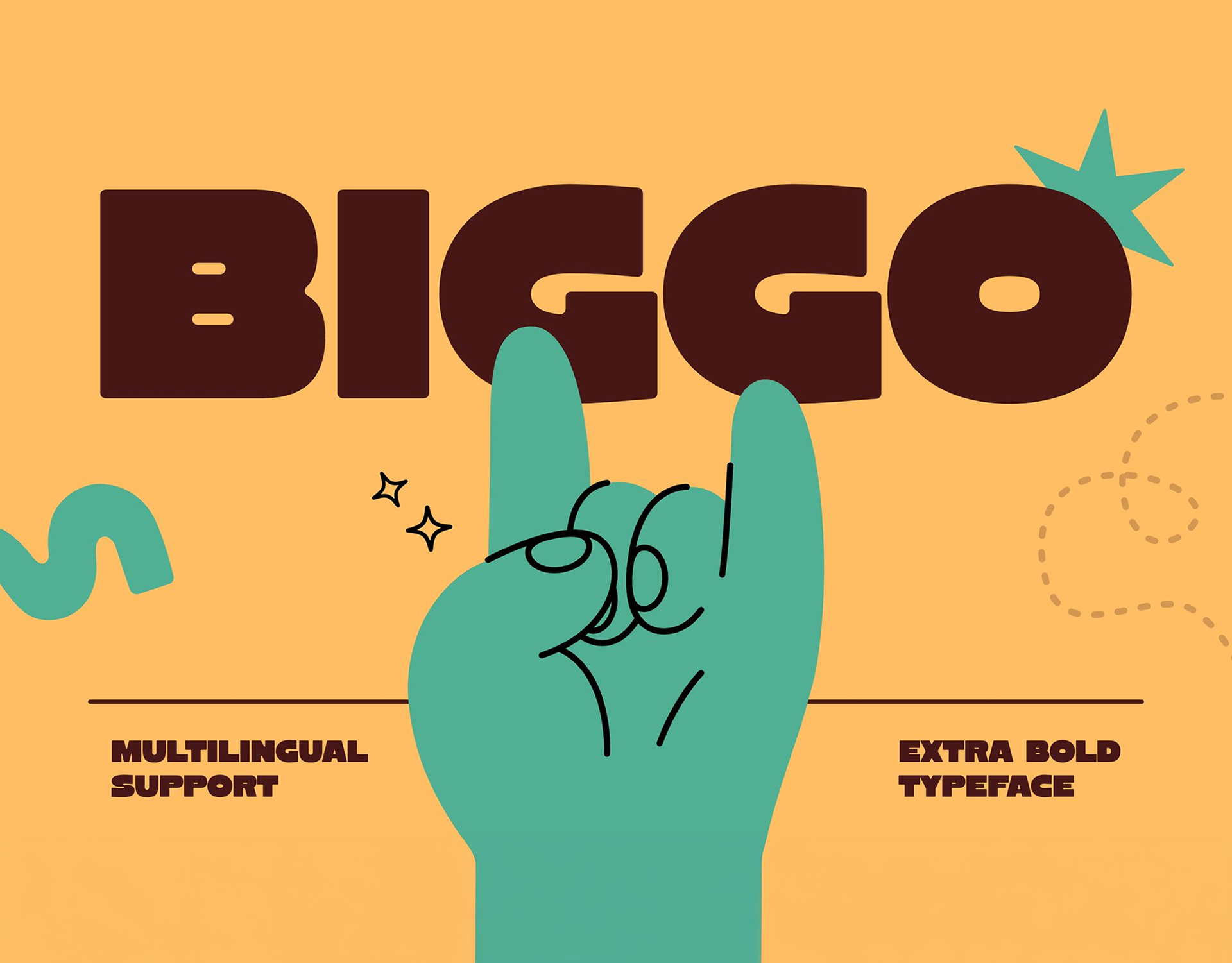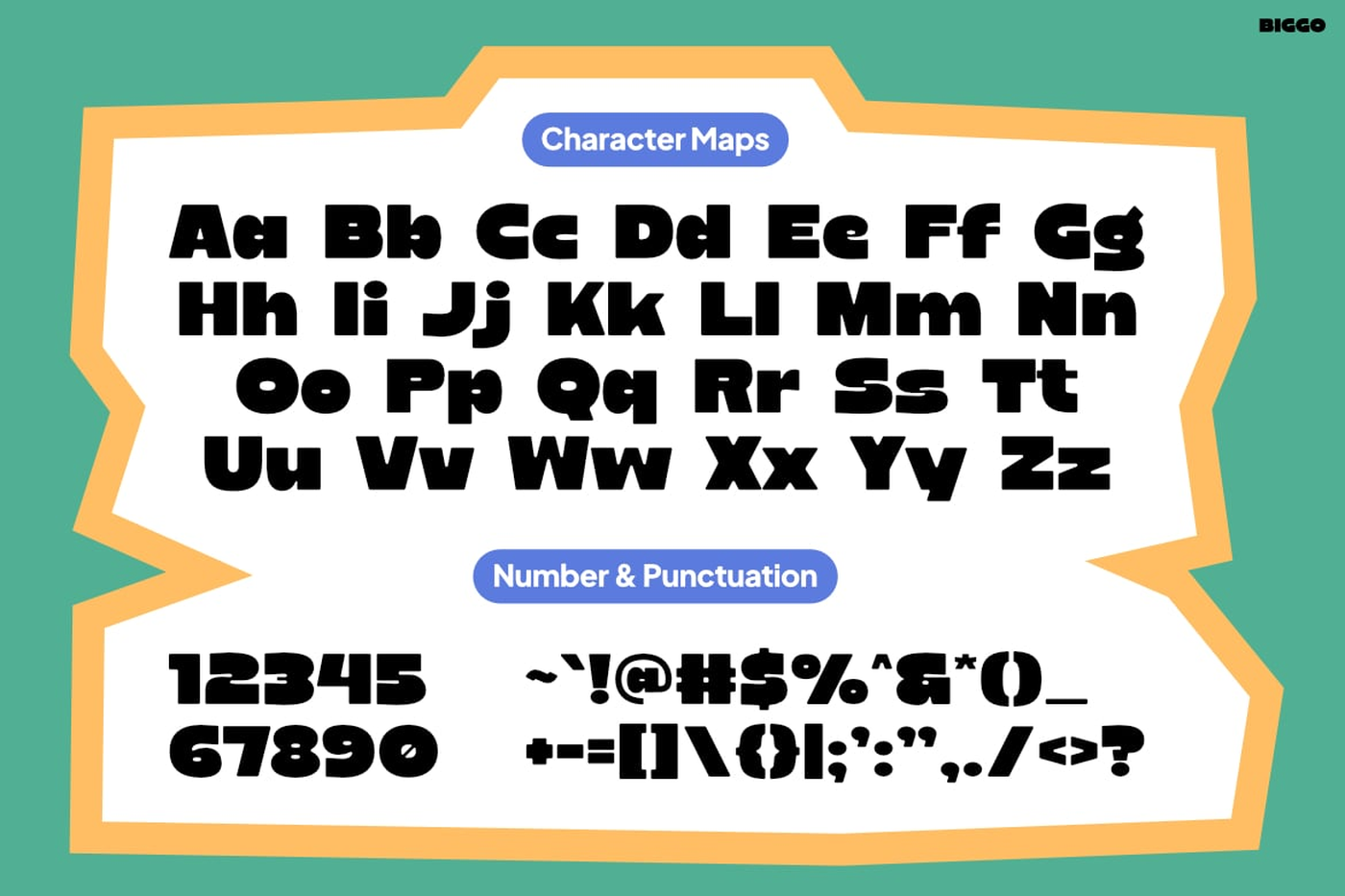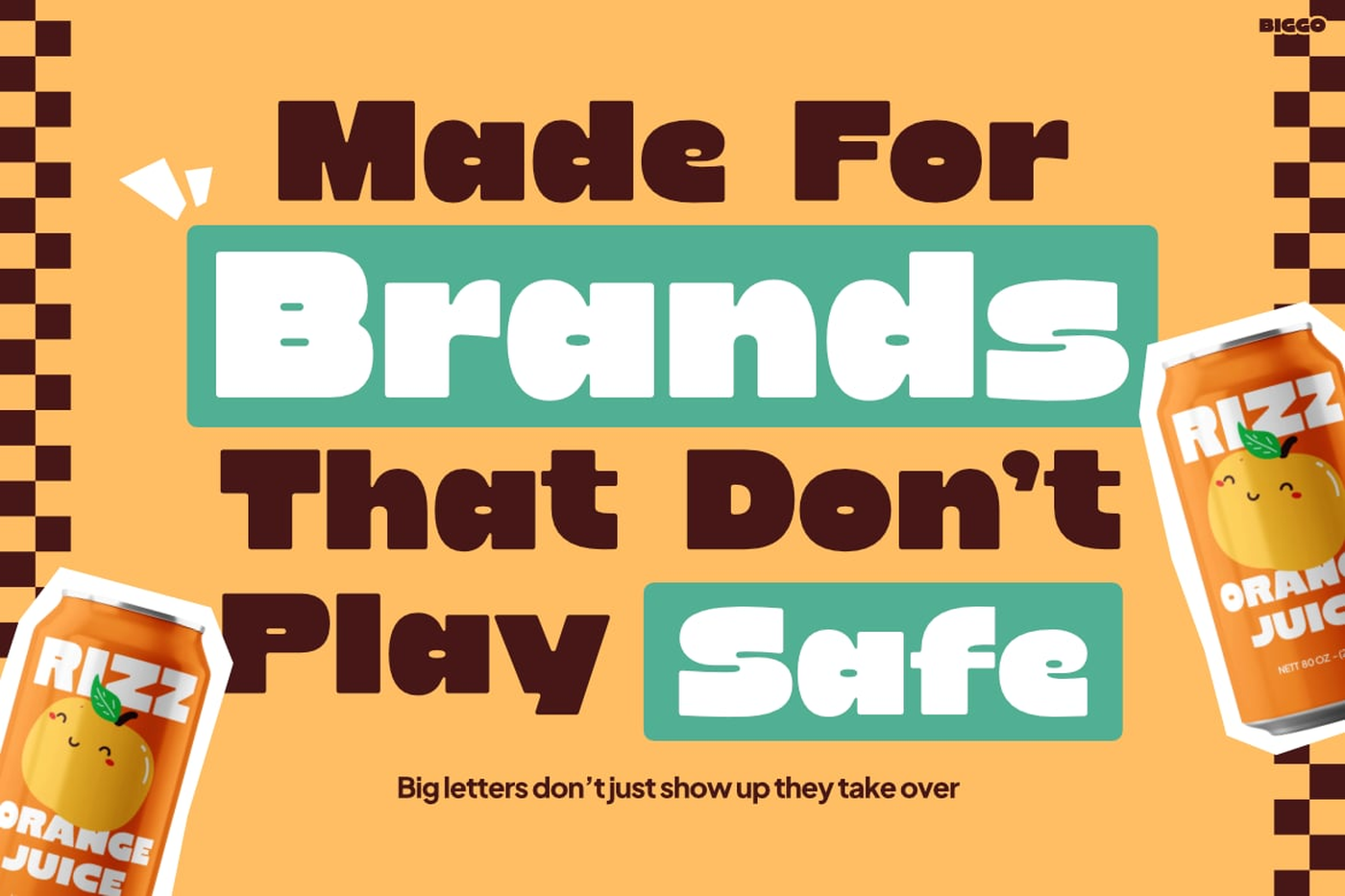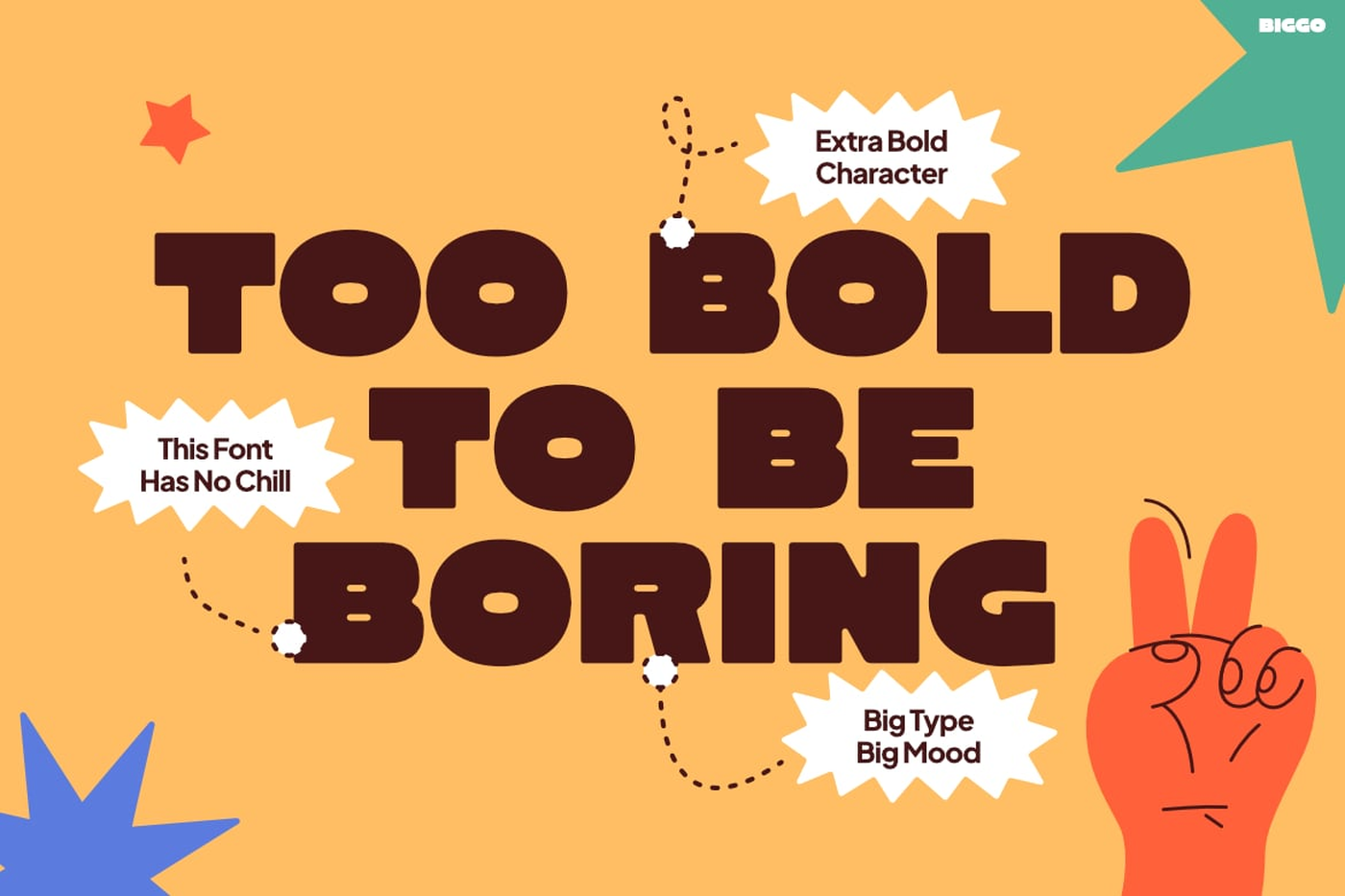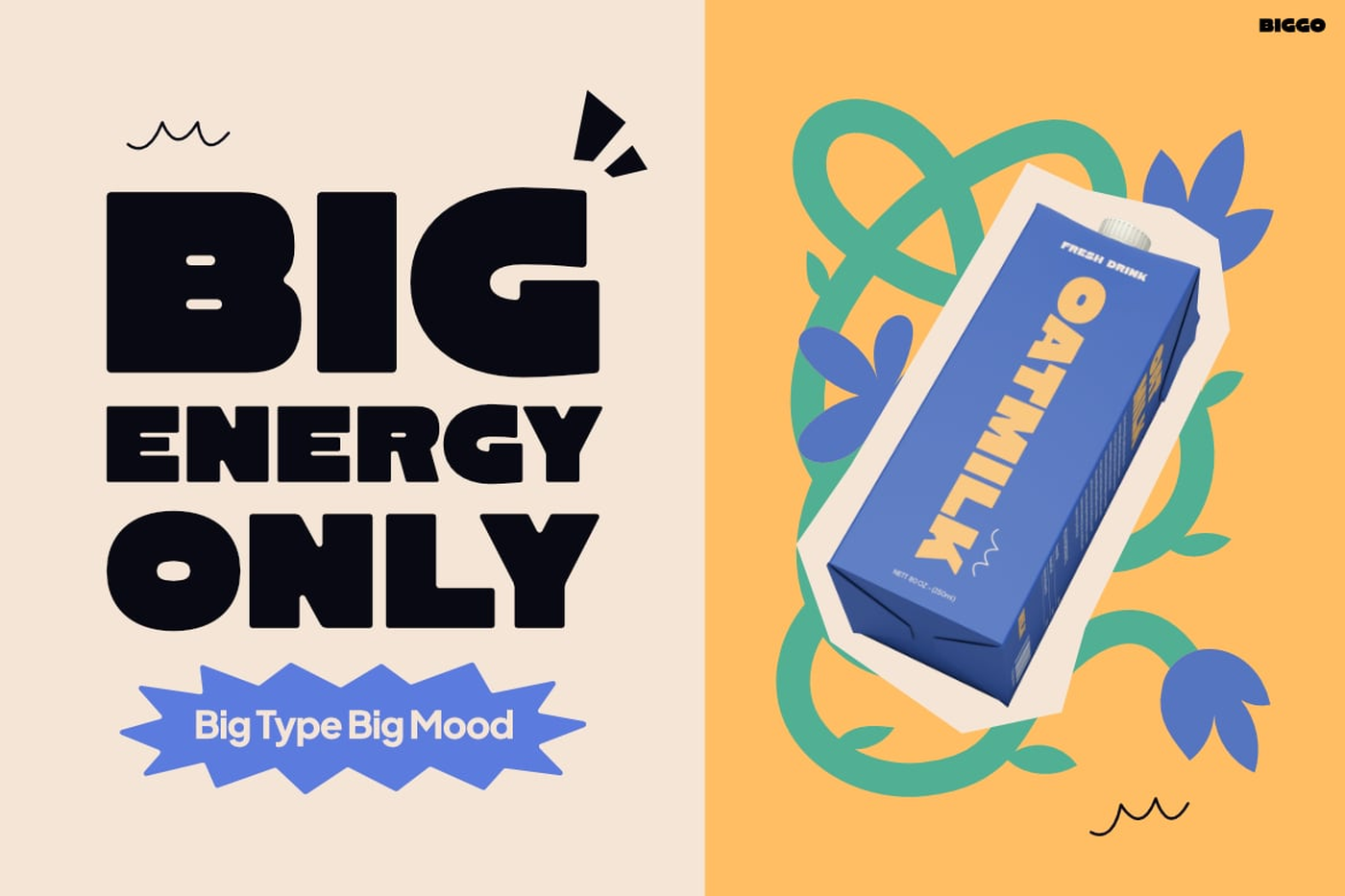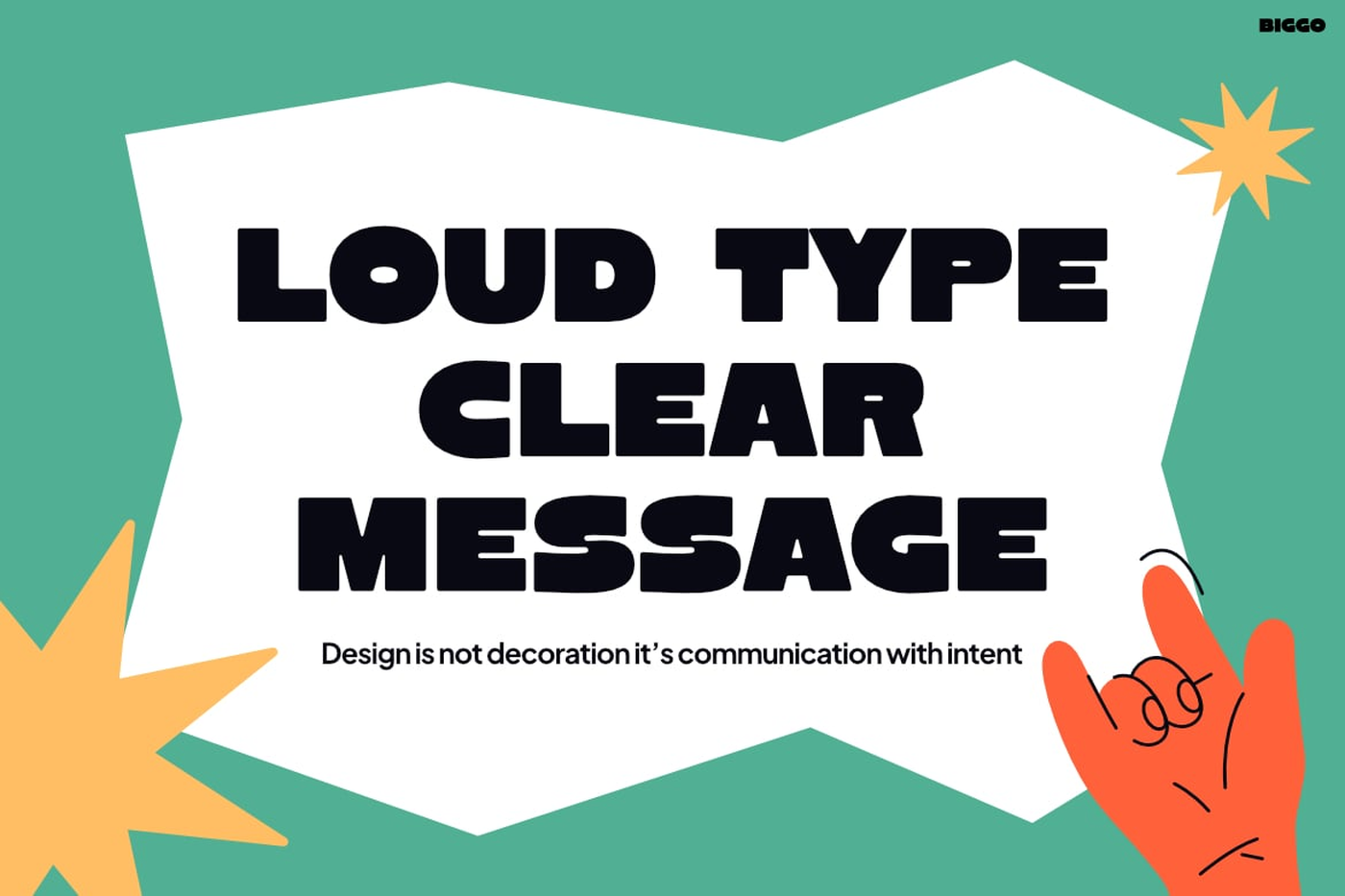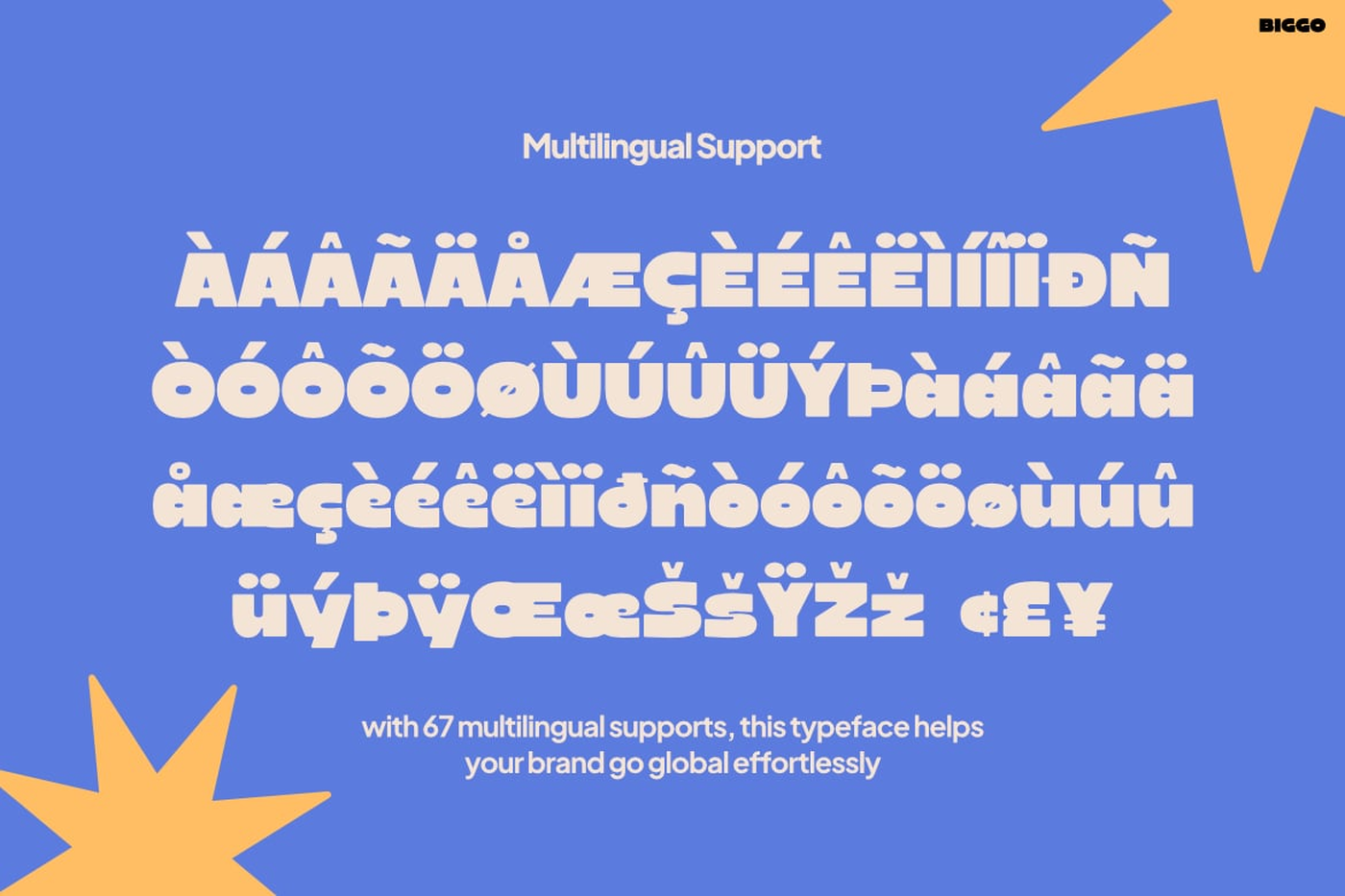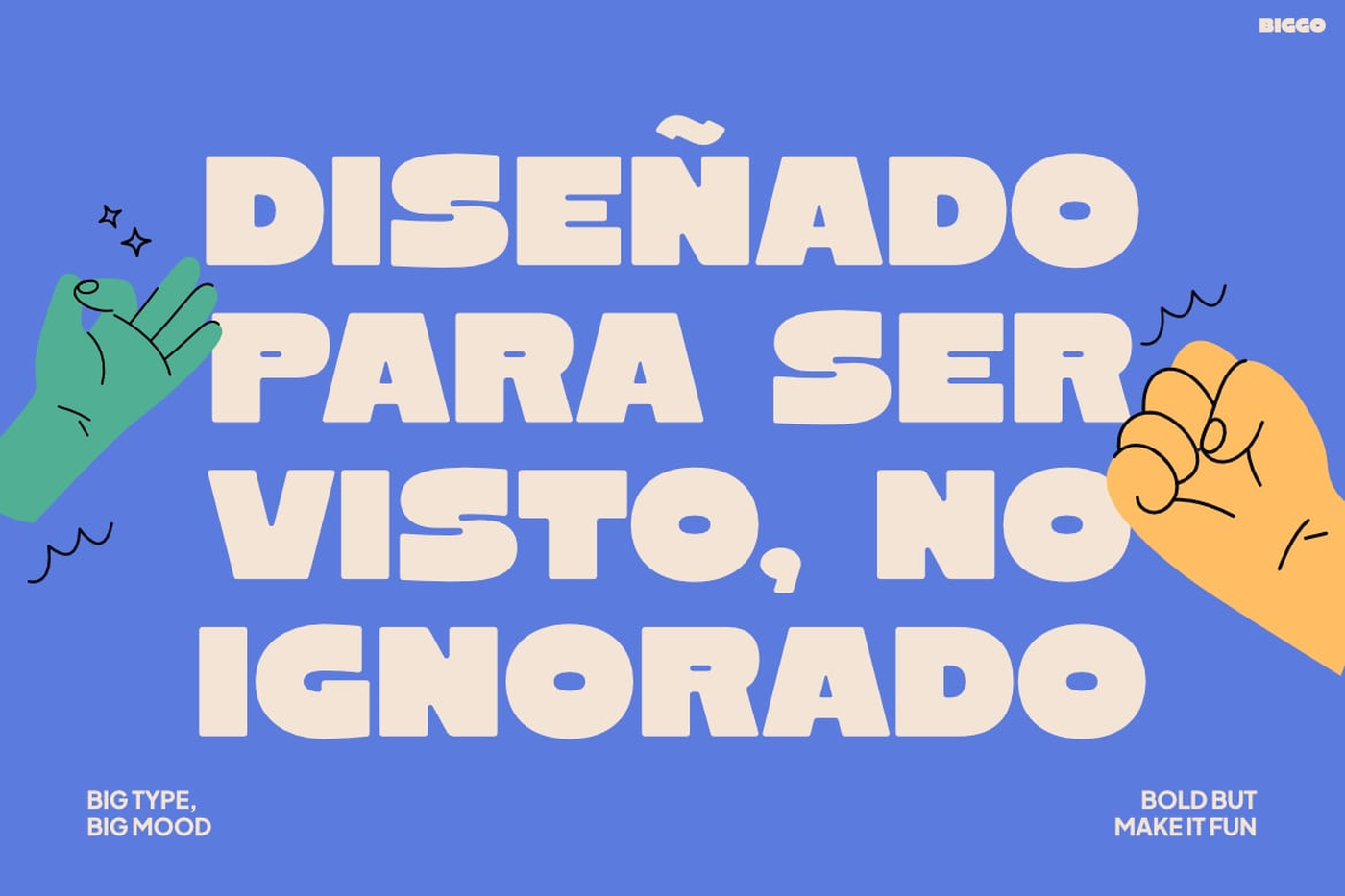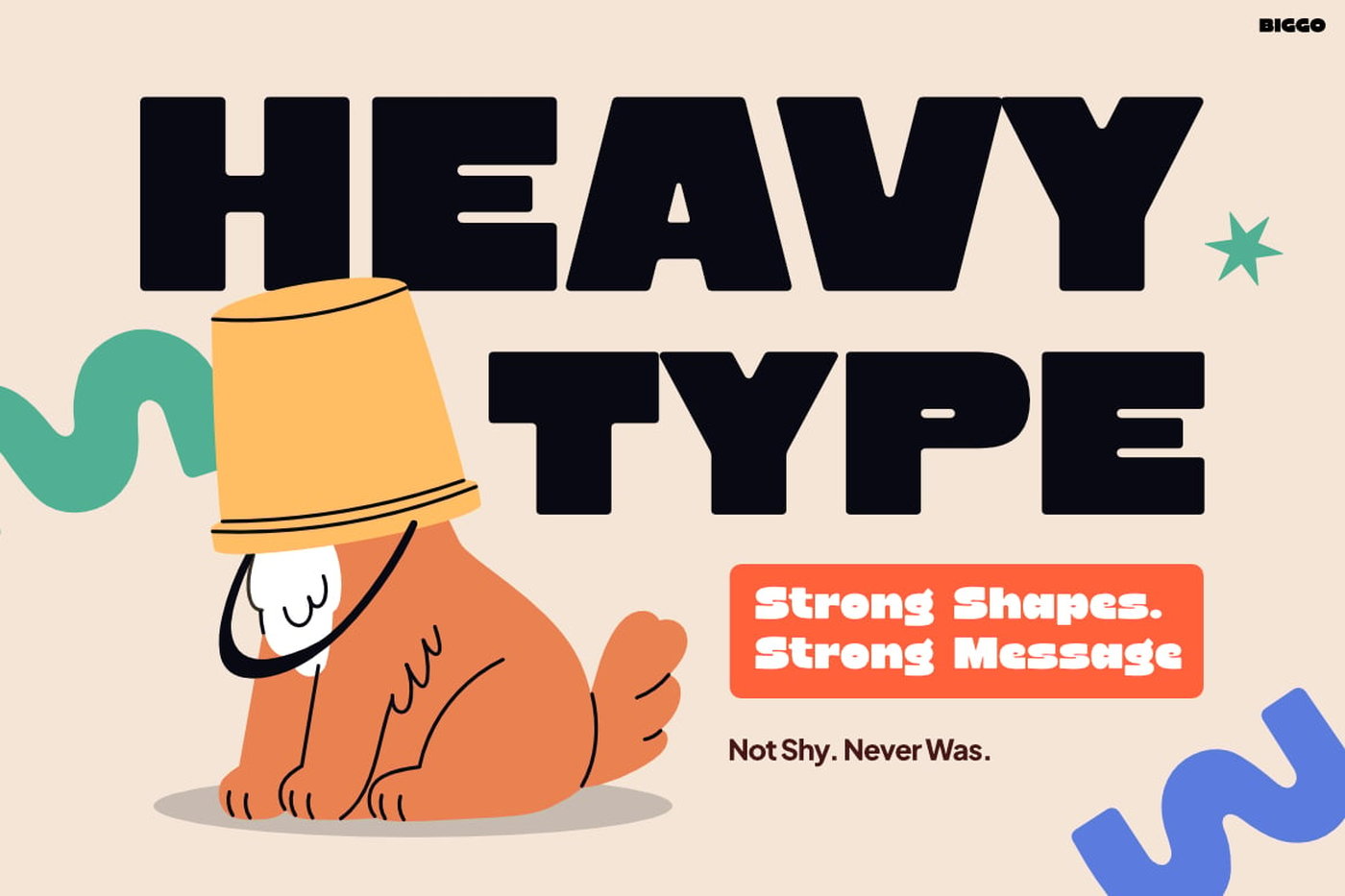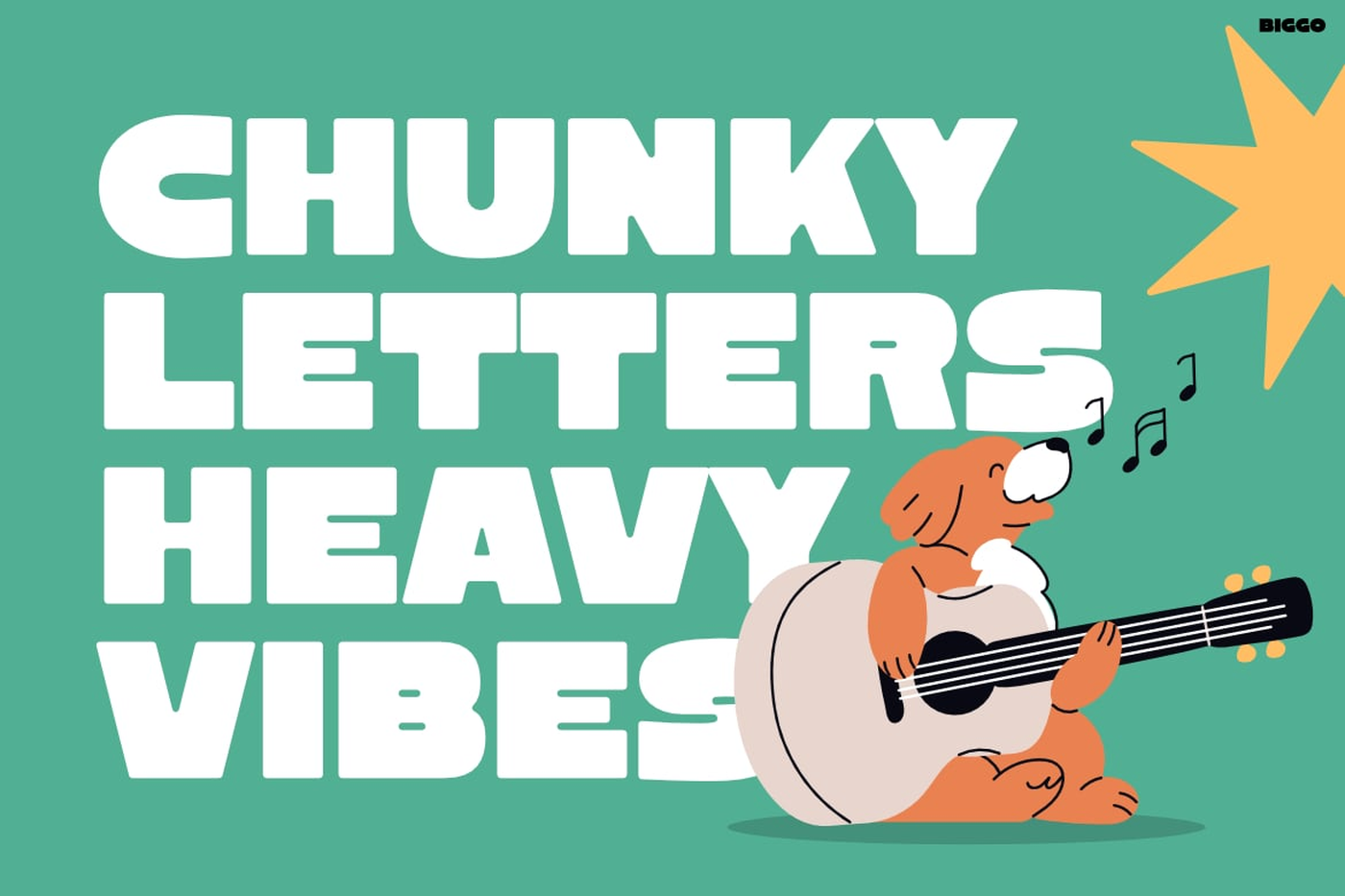
BIGGO - Bold Chunky Display Font
BIGGO is a bold chunky display typeface for expressive branding and loud visual storytelling, built with rounded geometric forms, low contrast strokes, and a compact, blocky structure that creates a playful yet commanding presence. Designed with a vibrant and energetic vibe, BIGGO thrives in modern visual spaces like social media campaigns, kids-oriented branding, poster design, and eye-catching packaging. Its thick proportions and soft curves create a friendly yet powerful tone—making it highly readable even at large sizes. The letterforms feature wide bodies, smooth terminals, and a slightly bouncy visual rhythm, delivering a confident personality that feels both approachable and impactful. With multilingual support across 67 languages, BIGGO is engineered for global communication without losing its bold identity.
Font: BIGGO